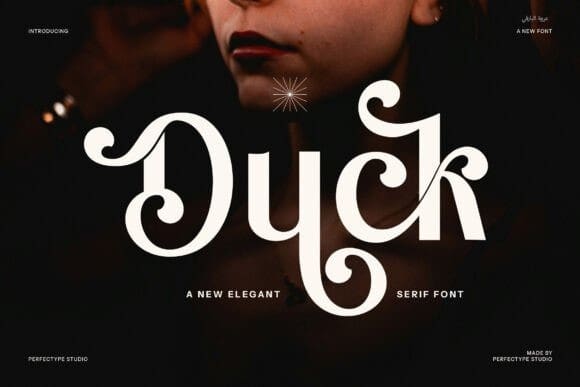
Duck Font
Duck Font – Modern Sans Serif Font, a contemporary typeface that seamlessly blends modern sophistication with playful character. Designed with versatility in mind, this semi-serif font offers a clean and sleek appearance, ideal for a wide range of creative projects. Whether you’re working on a logo, branding, website, or magazine layout, Duck Font – Modern brings an air of elegance and professionalism while maintaining a unique, approachable flair.
One of the standout features of this font is its distinctive **ligatures** and **alternate letterforms**. These carefully crafted details add an extra layer of personality, making your designs truly stand out. The font’s elegant curves and subtle serifs give it a refined yet contemporary vibe, making it perfect for a variety of industries—from boutiques and food brands to high-end product advertisements.
Duck Font – Modern’s versatility shines in digital and print applications alike, offering a polished aesthetic for websites, magazine spreads, and product packaging. Its balanced letter spacing and clear legibility ensure that it works well across all sizes, whether displayed on a business card or a large billboard.
With its dynamic mix of classic and modern design elements, Duck Font – Modern Sans Serif Font is more than just a typeface—it’s a creative tool that elevates your visual identity. Whether you’re crafting an eye-catching brand or enhancing your website’s user experience, Duck Font – Modern delivers style and substance in equal measure.